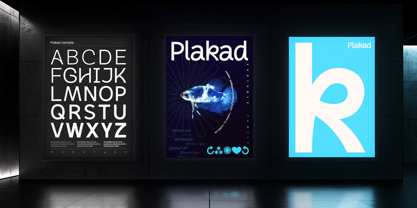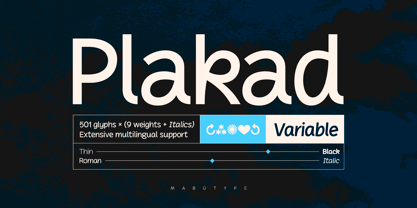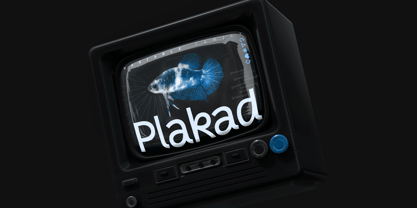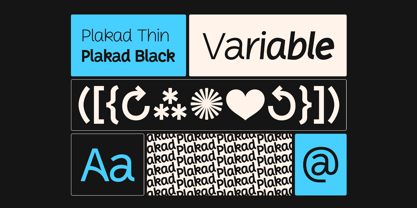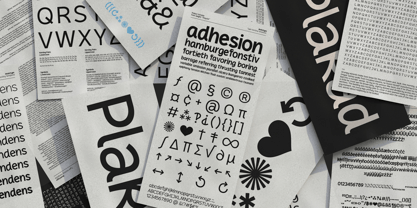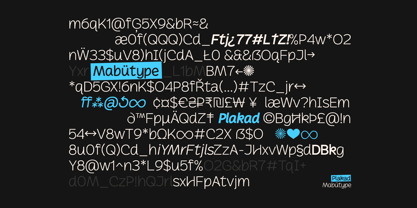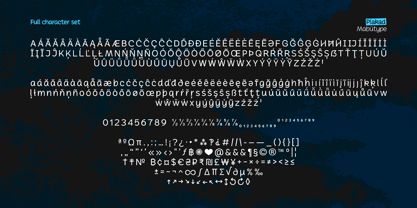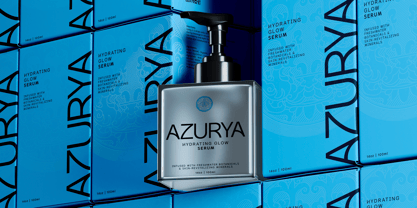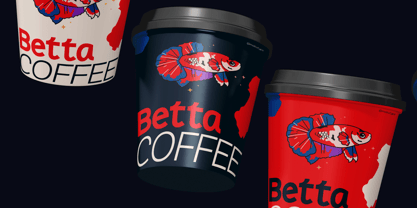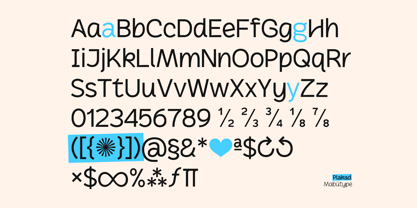
Plakad
by Mabütype
The Plakad Font Family was designed by Marcello Maziero and published by Mabütype. Plakad contains 18 styles and family package options. More about this family
Plakat is a lively sans-serif typeface that artfully combines humanist and hand-drawn elements, resulting in a playful yet refined aesthetic. This versatile font offers stylistic alternates for lowercase letters a, g, and y, as well as the ampersand and @ symbol, enhancing your design possibilities. With its smooth curves and consistent rhythm, Plakat establishes a modern, quirky design language that seamlessly adapts to various applications, including branding, headlines, body text, and packaging. Featuring a comprehensive range of weights from Thin to Black, along with matching italics, Plakat provides the flexibility needed for diverse typographic projects. Its extensive multilingual support ensures effective communication across numerous languages. Boasting a character set of over 500 glyphs, it also includes unique symbols such as the asterism, interrobang, black heart, and more. Explore Plakat to add a cool, expressive touch to your next creative endeavor!